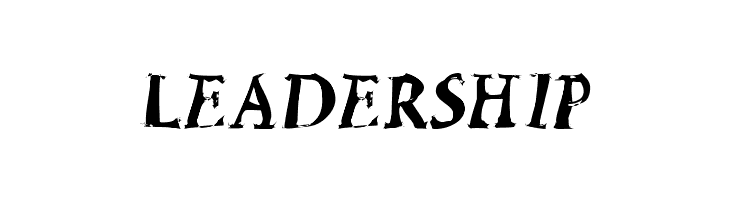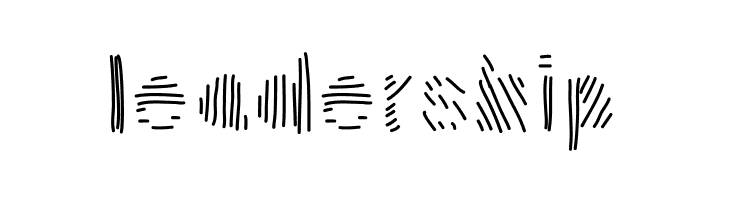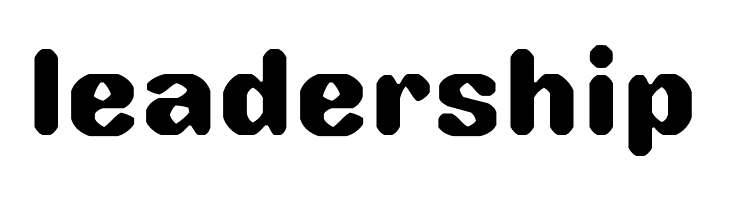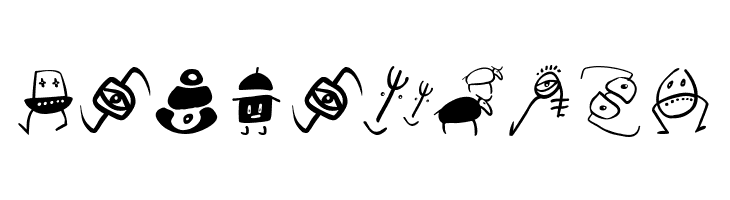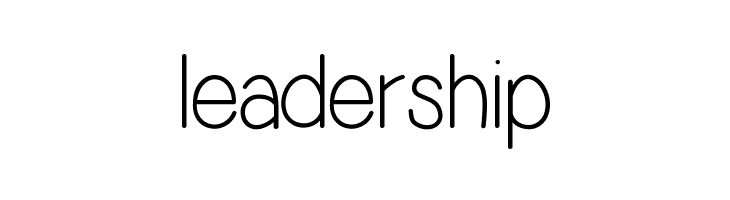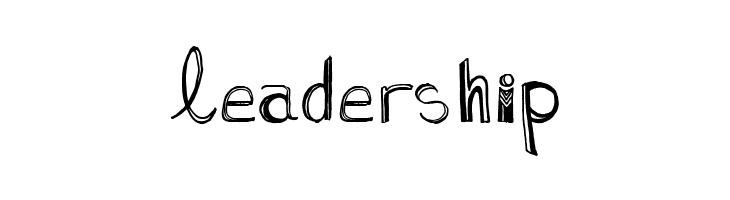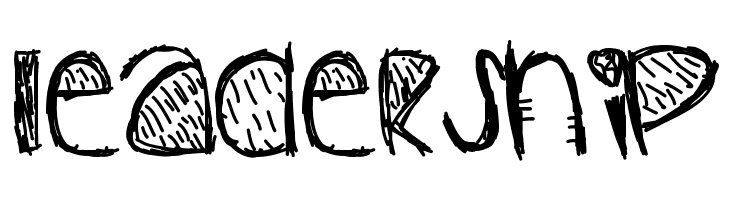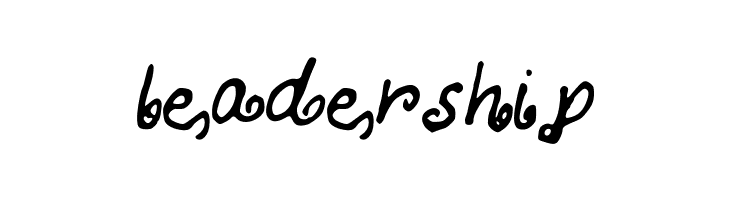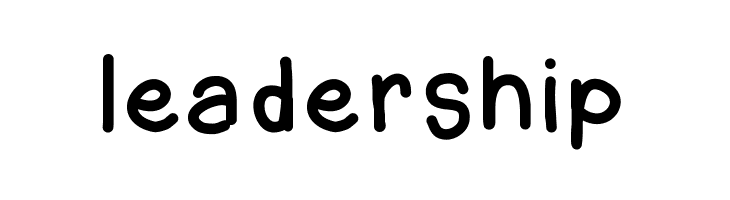
A clean, geometric font with a minimalist and modern design.
A modern, geometric sans-serif font with rounded edges and consistent stroke width.
A bold, hand-drawn font with an edgy, urban feel.
A clean, modern sans-serif font with medium weight and balanced proportions.
A modern, medium-weight sans-serif font with an italic slant and balanced proportions.
A creative font with characters formed by parallel lines, offering a dynamic and textured look.
A bold, rounded font with a strong and approachable style.
A playful, handwritten font with rounded, irregular characters.
A segmented, digital-style font with a retro LED display aesthetic.
A bold, playful, hand-drawn style with thick strokes and a whimsical feel.
A bold, hand-drawn font with a playful, outlined style and rough texture.
A bold, brush-style font with dynamic and expressive strokes.
A playful, bold outline font with dynamic, rounded uppercase letters.
A bold, pixelated font with a retro, tech-inspired design.
A bold, distressed font with a grunge-like, hand-drawn appearance.
A whimsical and playful collection of sketch-like characters and symbols.
Hand-drawn, sketch-style icon set with an informal, playful look.
Hand-drawn, sketch-style icon set with informal, playful lines.
A bold, sketch-like font with sharp, jagged edges and an artistic flair.
A sketch-like, hand-drawn font with an artistic and playful style.
A bold, sketchy font with an energetic, hand-drawn style.